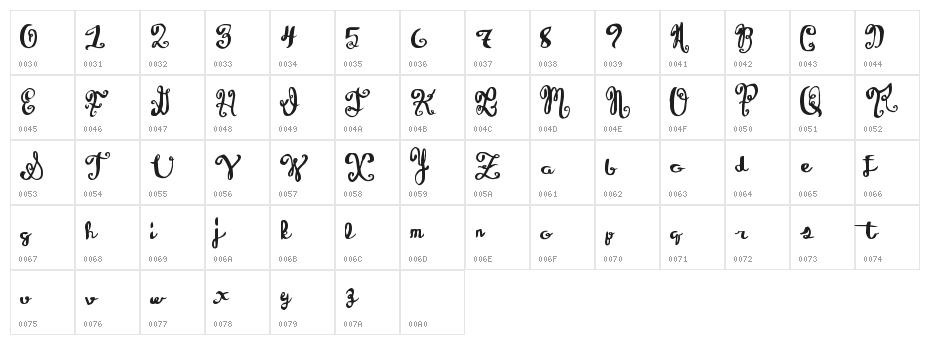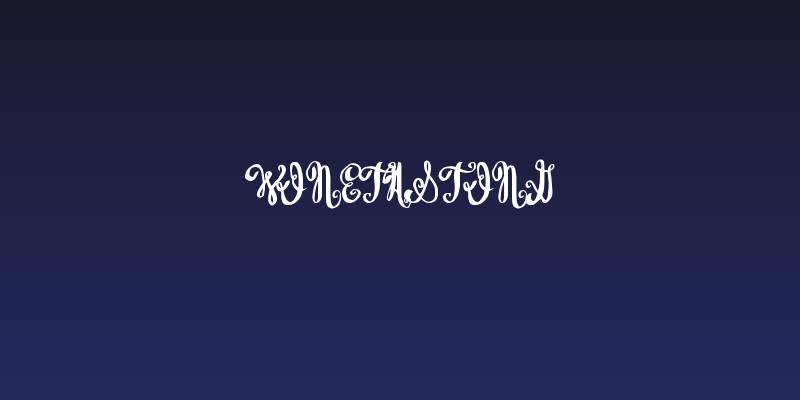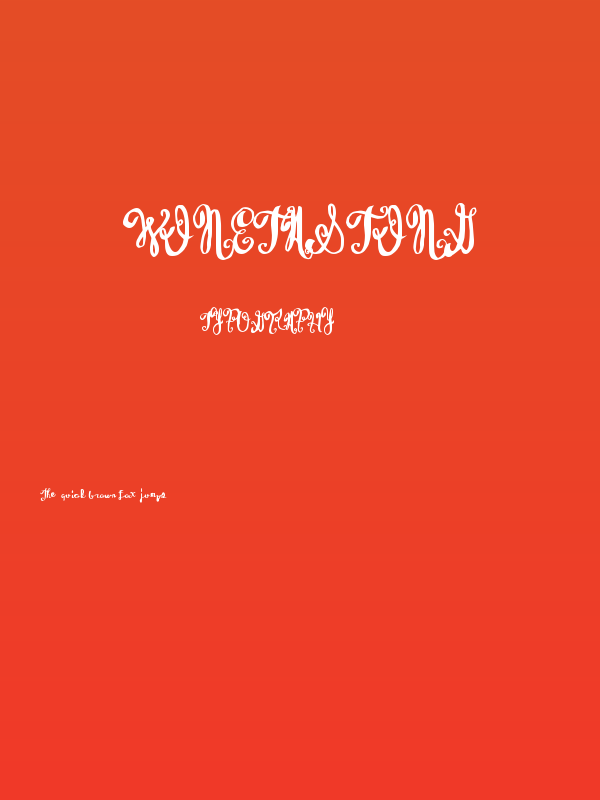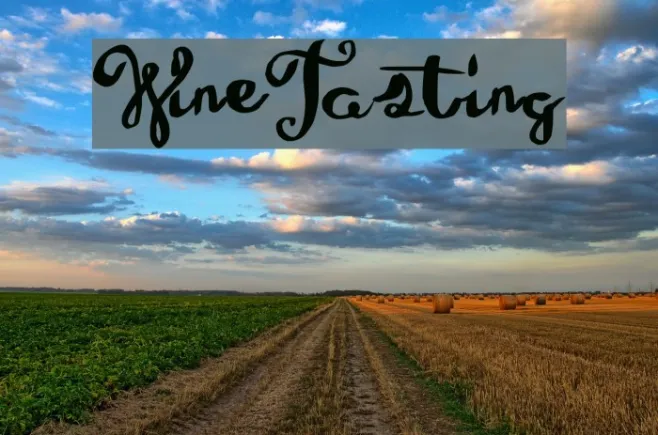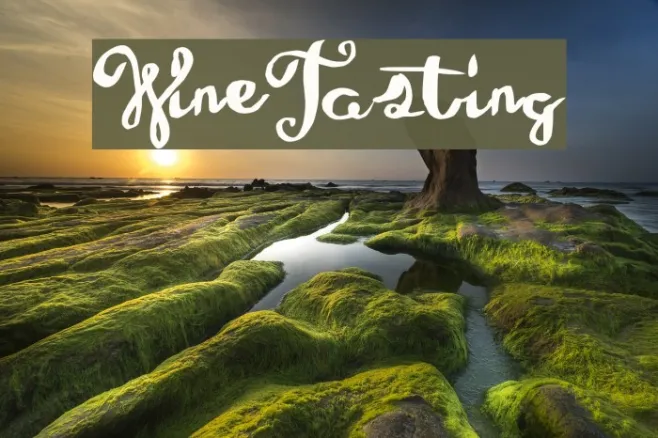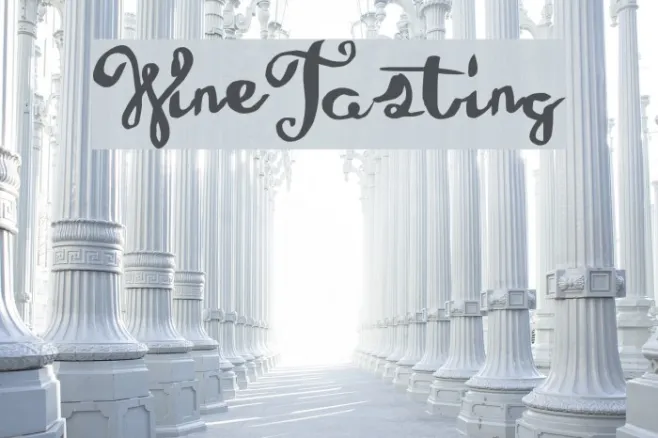
WineTasting Font
WineTasting Description
This font features an ornate and decorative style with a whimsical flair. The uppercase letters are characterized by elaborate swirls and curls, giving them a playful yet elegant appearance. The lowercase letters maintain a similar decorative style, with some characters featuring unique loops and flourishes. The numbers are equally ornate, with each digit incorporating artistic elements that enhance their visual appeal. This font is ideal for projects that require a touch of sophistication and creativity, such as invitations, branding, or artistic designs. Its intricate design makes it stand out, making it suitable for headlines or decorative purposes.
| Proposed Projects | Ideal for invitations, branding, artistic designs, and decorative headlines. |